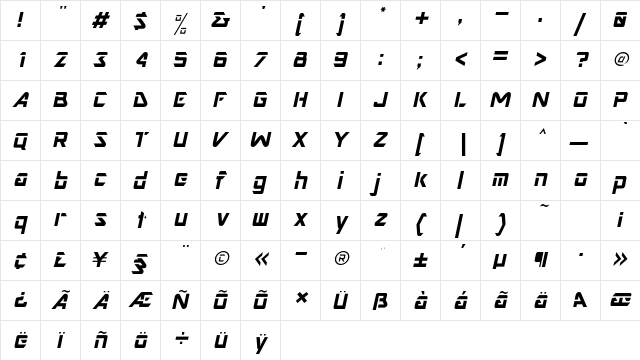
NimrodDisplaySSK Italic
Design Context for NimrodDisplaySSK Typeface
NimrodDisplaySSK is built around its visual character rather than neutral utility — its distinctive forms are designed to make an impression at display sizes. The slanted form adds forward momentum and visual energy.
Font Pairing: Pair with a clean neutral sans-serif for body copy to let NimrodDisplaySSK's character lead without overwhelming the composition.
Pro Tip: Use NimrodDisplaySSK exclusively at display sizes — it was designed to be seen, not read at length. Let a neutral companion handle body copy.